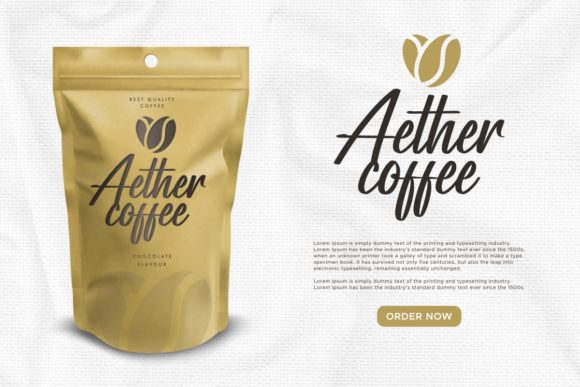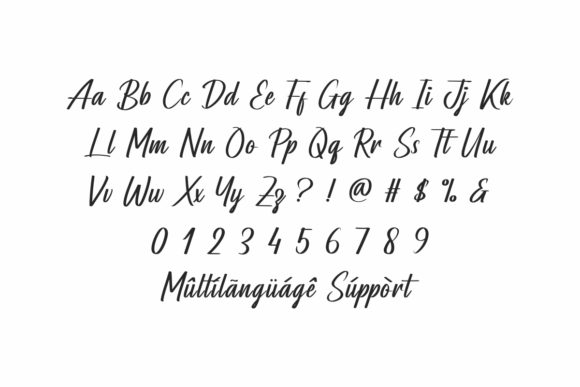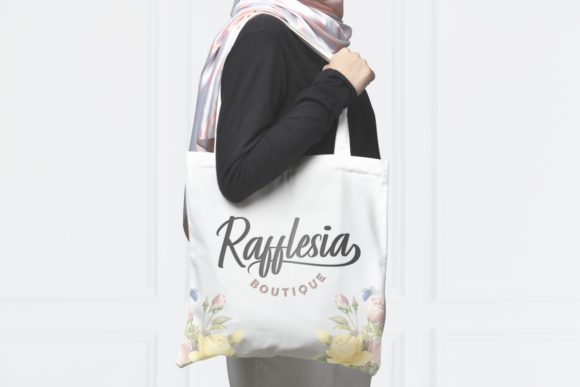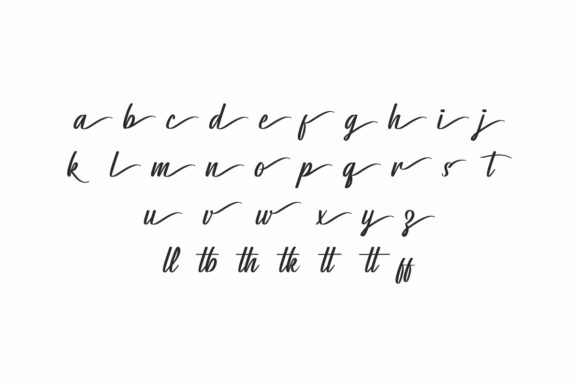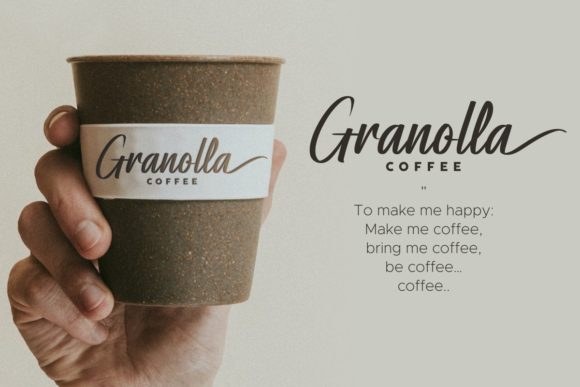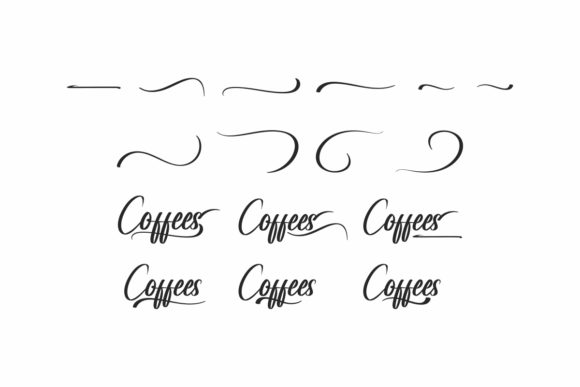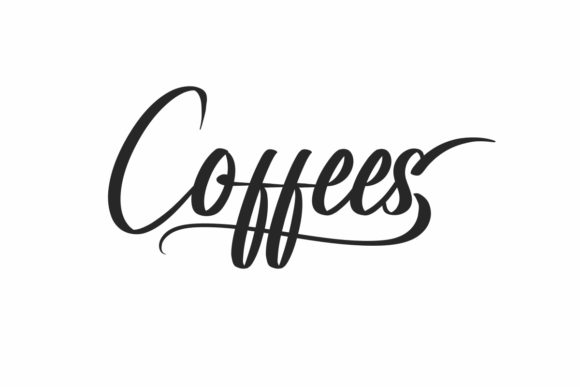
Coffees Font: A Sweet and Cursive Handwritten Font for Your Design Needs
Are you a designer or crafter looking for a font that can add a touch of joy and romance to your projects? Look no further than Coffees Font, a sweet and cursive handwritten font that is perfect for a variety of design ideas. In this article, we’ll take a closer look at Coffees Font, its features, and how you can use it to elevate your designs.
What is Coffees Font?
Coffees Font is a beautiful, handwritten font that is designed to add a touch of elegance and sophistication to your designs. Its cursive and flowing lines make it perfect for creating romantic and whimsical designs that will capture the attention of your audience. Whether you’re working on a branding project, a wedding invitation, or a social media graphic, Coffees Font is sure to impress.
Key Features of Coffees Font
So, what makes Coffees Font so special? Here are some of its key features:
• Sweet and Cursive Handwritten Style: Coffees Font has a unique, handwritten style that is both sweet and cursive. Its flowing lines and gentle curves make it perfect for creating romantic and whimsical designs.
• PUA Encoded: Coffees Font is PUA encoded, which means you can access all of the glyphs and swashes with ease. This makes it easy to customize your designs and add your own personal touch.
• Versatile: Coffees Font is a versatile font that can be used on a variety of design ideas. Whether you’re working on a logo, a brochure, or a social media graphic, Coffees Font is sure to look great.
How to Use Coffees Font in Your Designs
Now that we’ve covered the features of Coffees Font, let’s talk about how you can use it in your designs. Here are a few ideas to get you started:
• Branding Projects: Coffees Font is perfect for branding projects, such as logos, business cards, and letterheads. Its elegant and sophisticated style makes it perfect for creating a professional and cohesive brand image.
• Wedding Invitations: Coffees Font is a popular choice for wedding invitations, and for good reason. Its romantic and whimsical style makes it perfect for creating beautiful and memorable wedding stationery.
• Social Media Graphics: Coffees Font is also great for social media graphics, such as Facebook posts, Instagram stories, and Pinterest pins. Its playful and eye-catching style makes it perfect for grabbing the attention of your audience.
Tips for Getting the Most Out of Coffees Font
Here are a few tips for getting the most out of Coffees Font:
• Experiment with Different Colors: Coffees Font looks great in a variety of colors, so don’t be afraid to experiment and find the perfect color scheme for your design.
• Use it with Other Fonts: Coffees Font can be paired with other fonts to create a unique and interesting design. Try pairing it with a bold font for a striking contrast.
• Take Advantage of the Swashes: Coffees Font has a range of swashes and glyphs that can be used to add a personal touch to your designs. Take advantage of these to create a truly unique design.
In conclusion, Coffees Font is a beautiful and versatile font that is perfect for designers and crafters looking to add a touch of joy and romance to their projects. Its sweet and cursive handwritten style, PUA encoding, and versatility make it a great choice for a variety of design ideas. Whether you’re working on a branding project, a wedding invitation, or a social media graphic, Coffees Font is sure to impress. So why not give it a try and see what amazing designs you can create?